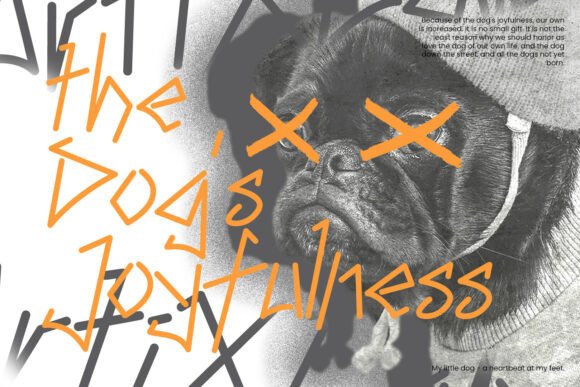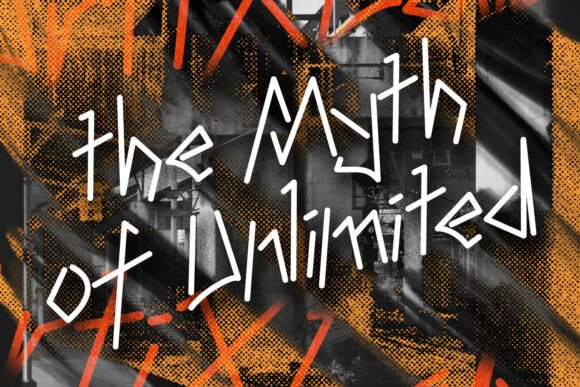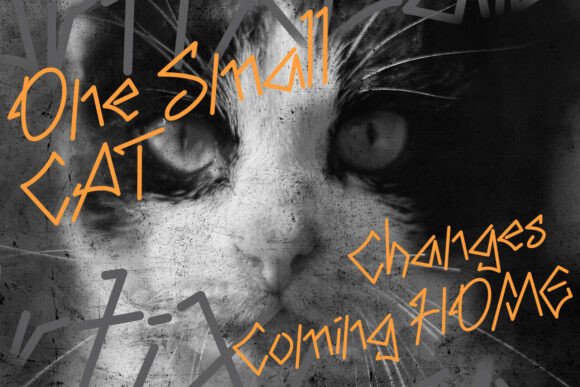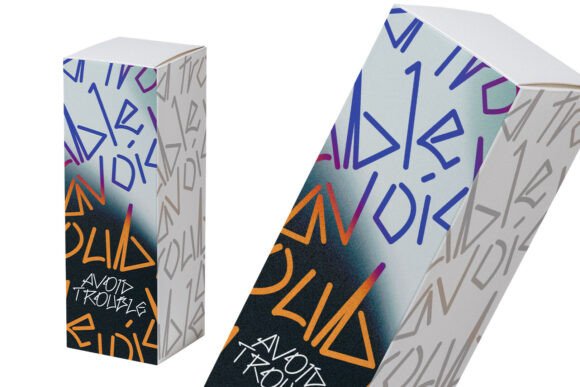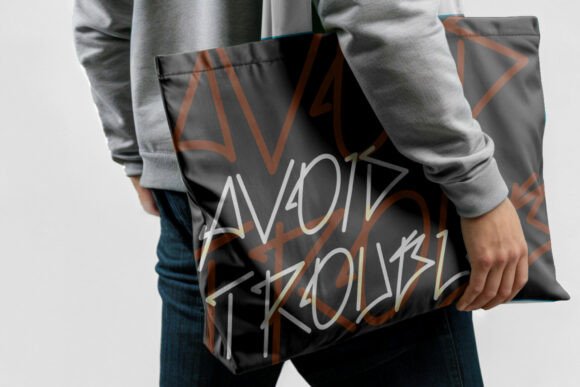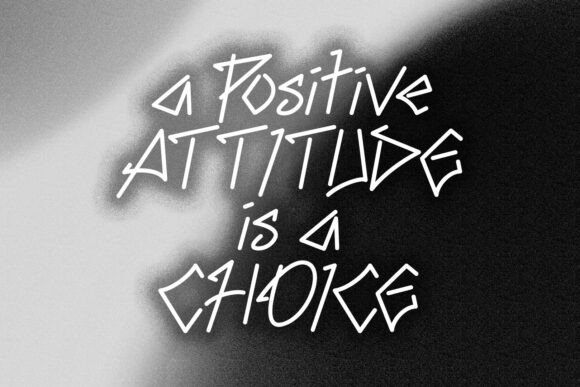
Unleash the Urban Edge with Block Raw Font
Are you looking for a font that embodies the raw energy of street tagging culture? Do you want to add an edgy touch to your designs that screams urban authenticity? Look no further than Block Raw, a bold graffiti display font that is sure to elevate your creative projects.
Inspired by Raw Street Tagging Culture
Block Raw is a font that is deeply rooted in the street art scene. Its design is inspired by the raw, unbridled energy of graffiti tagging, with sharp strokes and expressive handstyle structure that gives it a truly unique character. This font is not just a collection of letters and symbols – it’s a statement piece that can add a bold, urban edge to any design.
Block Raw is a versatile font that can be used in a wide range of design projects. Whether you’re creating posters, streetwear branding, album covers, logos, or bold headline designs, this font is sure to deliver. Its edgy character shapes create a strong visual impact that is sure to grab attention, while its readability makes it perfect for display use.
Authentic Urban Energy
One of the standout features of Block Raw is its ability to deliver authentic urban energy. This font is not just a superficial imitation of graffiti – it’s a genuine representation of the street art culture that inspired it. When you use Block Raw in your designs, you can be sure that you’re conveying a sense of raw, unbridled energy that is sure to resonate with your audience.
Crafted for Modern Urban Design Projects
Block Raw is a premium graffiti typeface that has been carefully crafted for modern urban design projects. Its sharp strokes and expressive handstyle structure make it perfect for designs that require a bold, edgy look. Whether you’re a designer, artist, or crafter, Block Raw is a font that is sure to inspire your creativity and help you create something truly unique.
Key Features of Block Raw Font
- Bold Graffiti Display Font: Block Raw is a font that is designed to make a statement. Its bold, edgy character shapes are perfect for creating eye-catching designs that demand attention.
- Sharp Strokes and Expressive Handstyle Structure: The sharp strokes and expressive handstyle structure of Block Raw give it a truly unique character that sets it apart from other fonts.
- Authentic Urban Energy: Block Raw is a font that is deeply rooted in street art culture, making it perfect for designs that require an edgy, urban look.
- Perfect for Display Use: Despite its bold, edgy character, Block Raw is surprisingly readable, making it perfect for display use in a variety of design projects.
How to Use Block Raw Font in Your Designs
- Pair it with Other Fonts: Block Raw is a bold font that can be paired with a variety of other fonts to create a unique look. Try pairing it with a clean, sans-serif font for a striking contrast.
- Use it for Headlines and Titles: Block Raw is perfect for headlines and titles, where its bold, edgy character can really make a statement.
- Experiment with Colors: Block Raw looks great in a variety of colors, from bold and bright to muted and pastel. Experiment with different colors to find the look that works best for your design.
Block Raw is a bold graffiti display font that is sure to add an edgy touch to your designs. With its sharp strokes, expressive handstyle structure, and authentic urban energy, this font is perfect for a variety of design projects, from posters and streetwear branding to album covers and logos. Whether you’re a designer, artist, or crafter, Block Raw is a font that is sure to inspire your creativity and help you create something truly unique.